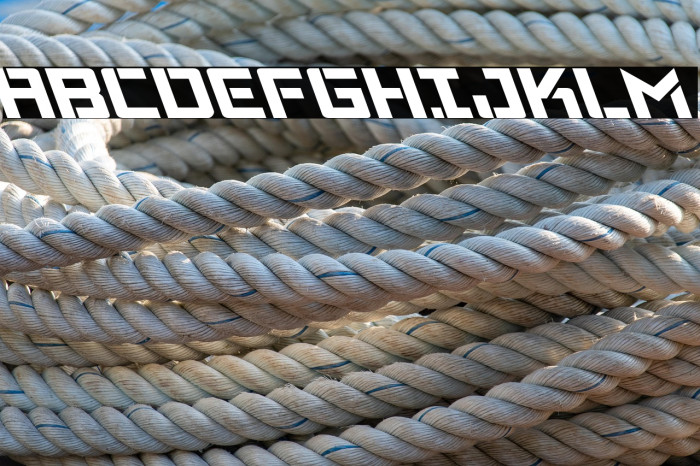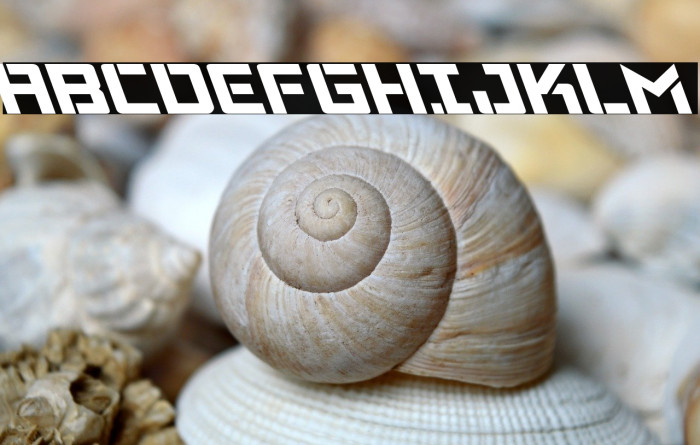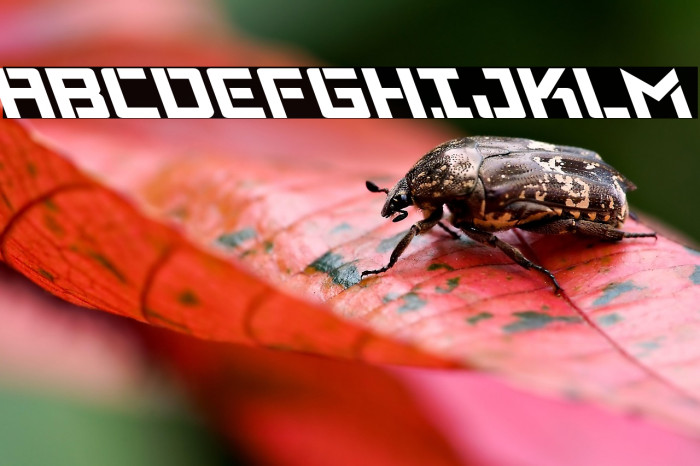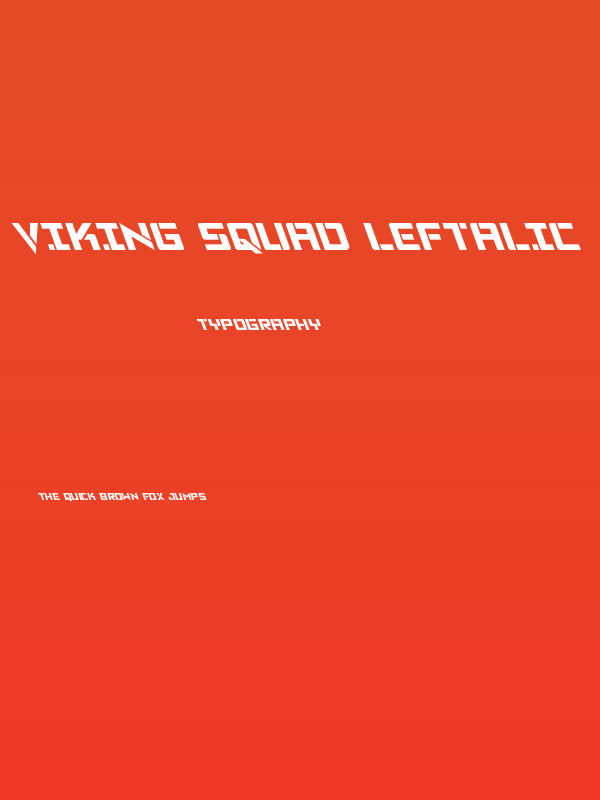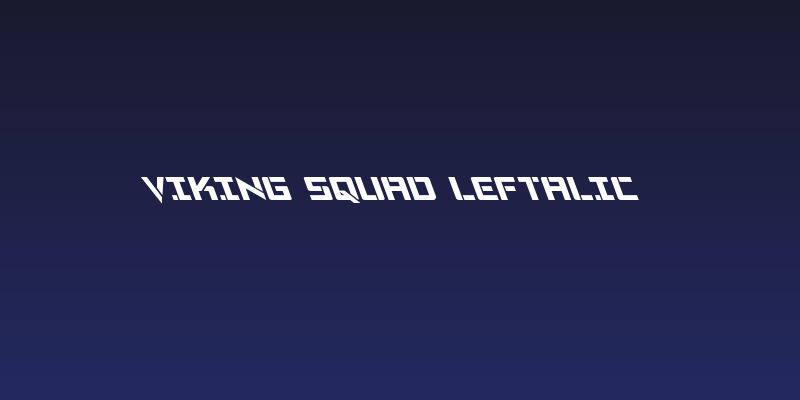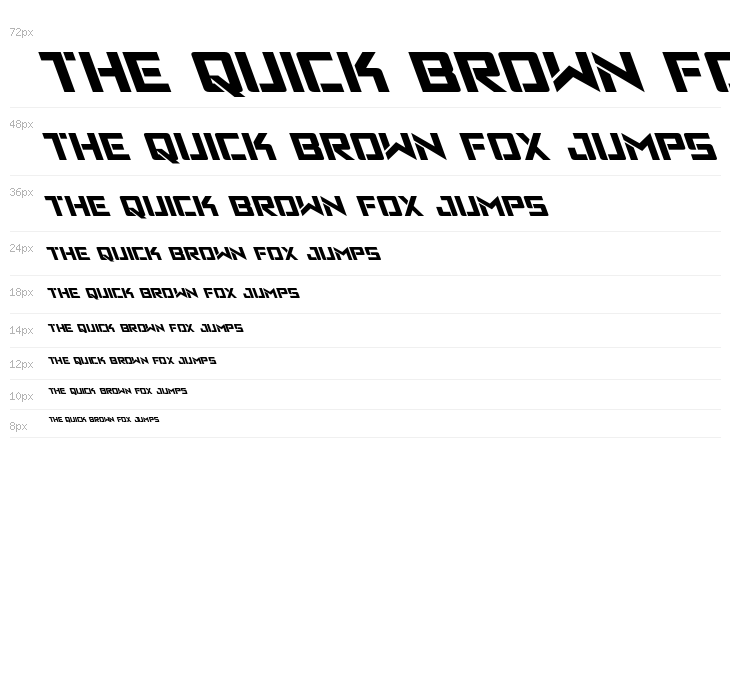
Viking Squad Leftalic Font
Viking Squad Leftalic Description
This font features a bold and angular design with a distinct leftward slant, giving it a dynamic and edgy appearance. The characters are constructed with sharp, geometric shapes, creating a sense of movement and energy. The uppercase and lowercase letters maintain a consistent style, with the same angular cuts and bold strokes. The numbers and special characters follow the same design principles, ensuring uniformity across all glyphs. This font's unique style makes it stand out, ideal for projects that require a strong visual impact.
| Proposed Projects | Ideal for video game titles, sports team branding, posters, and dynamic logos. |